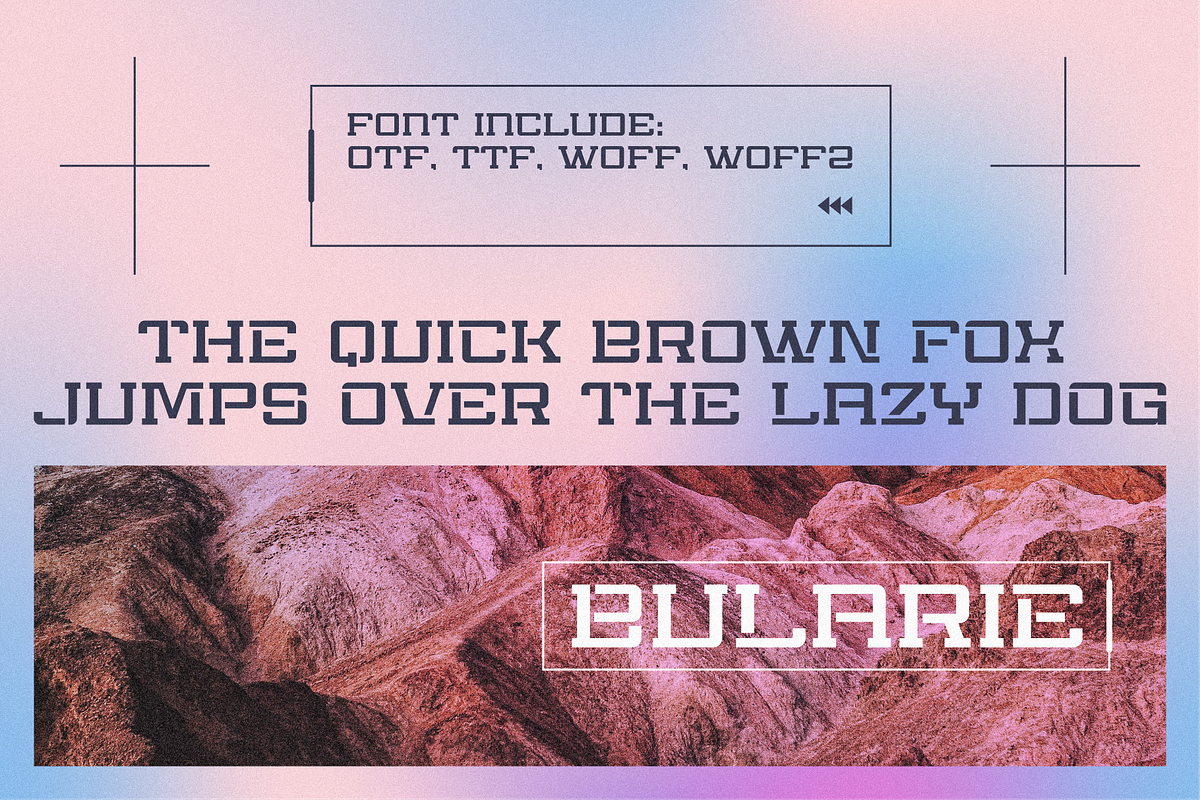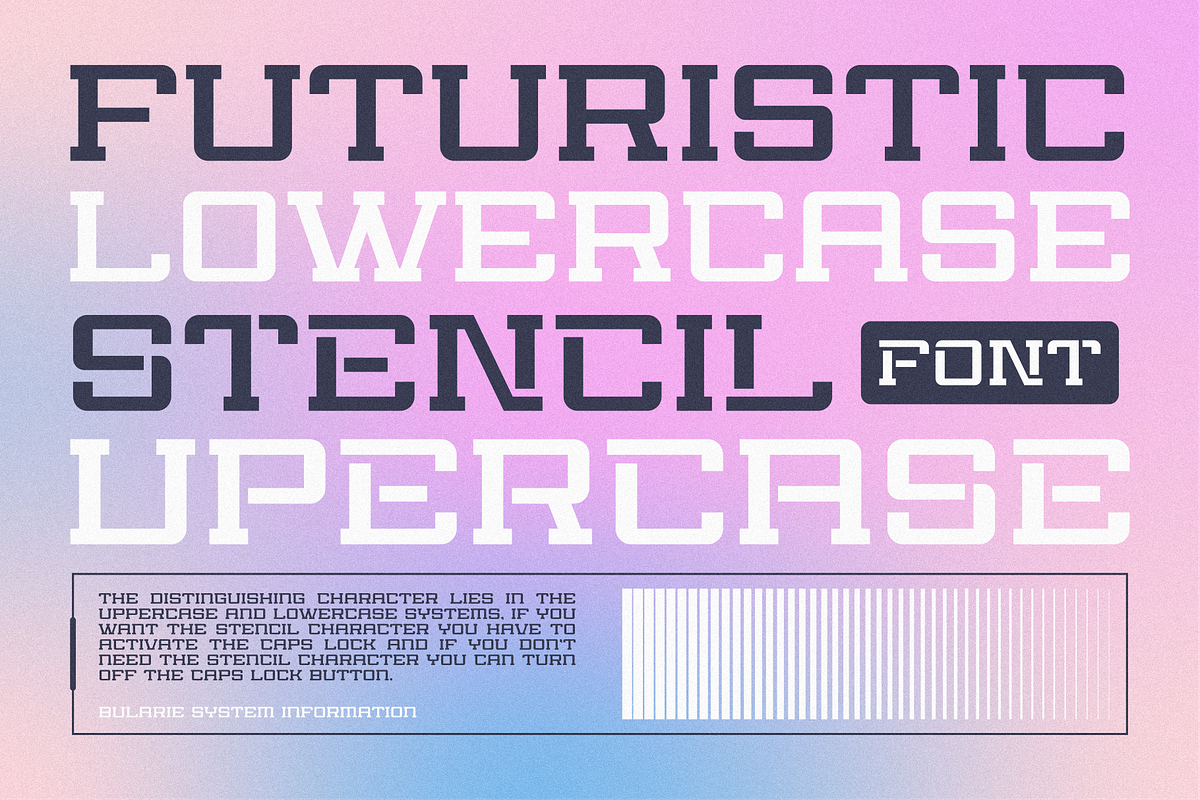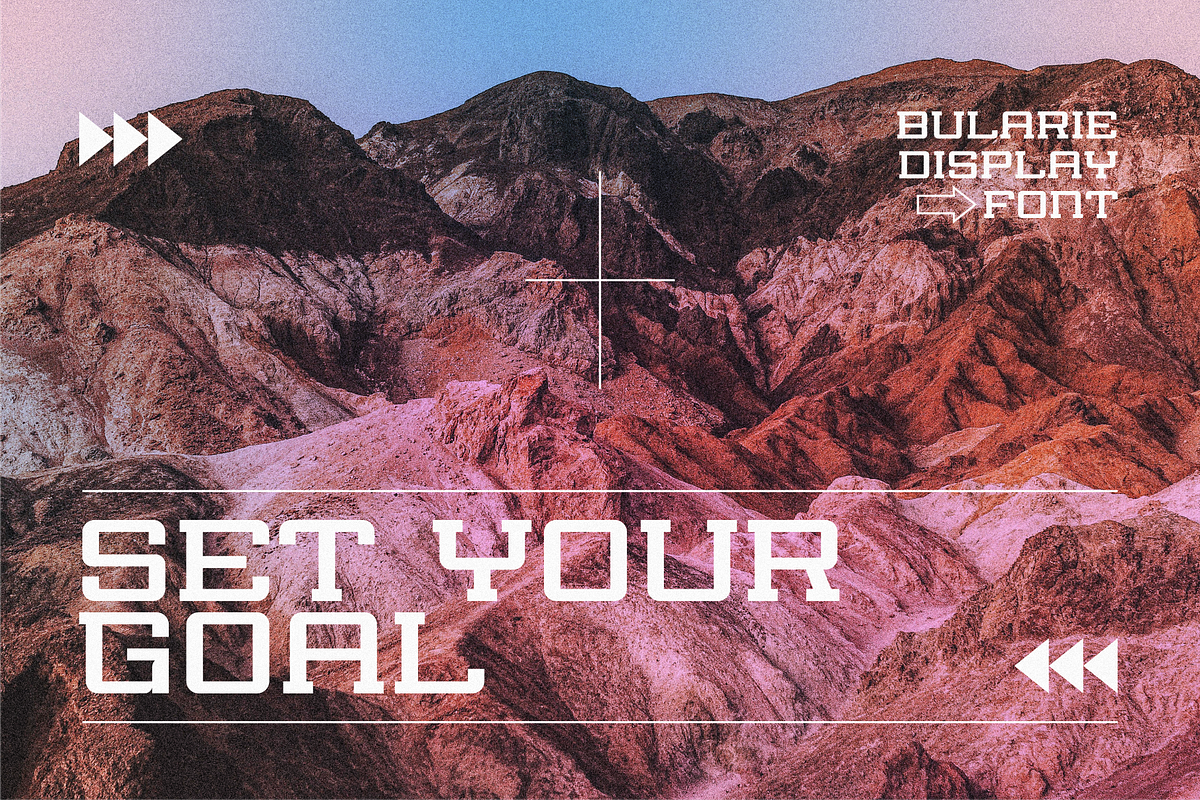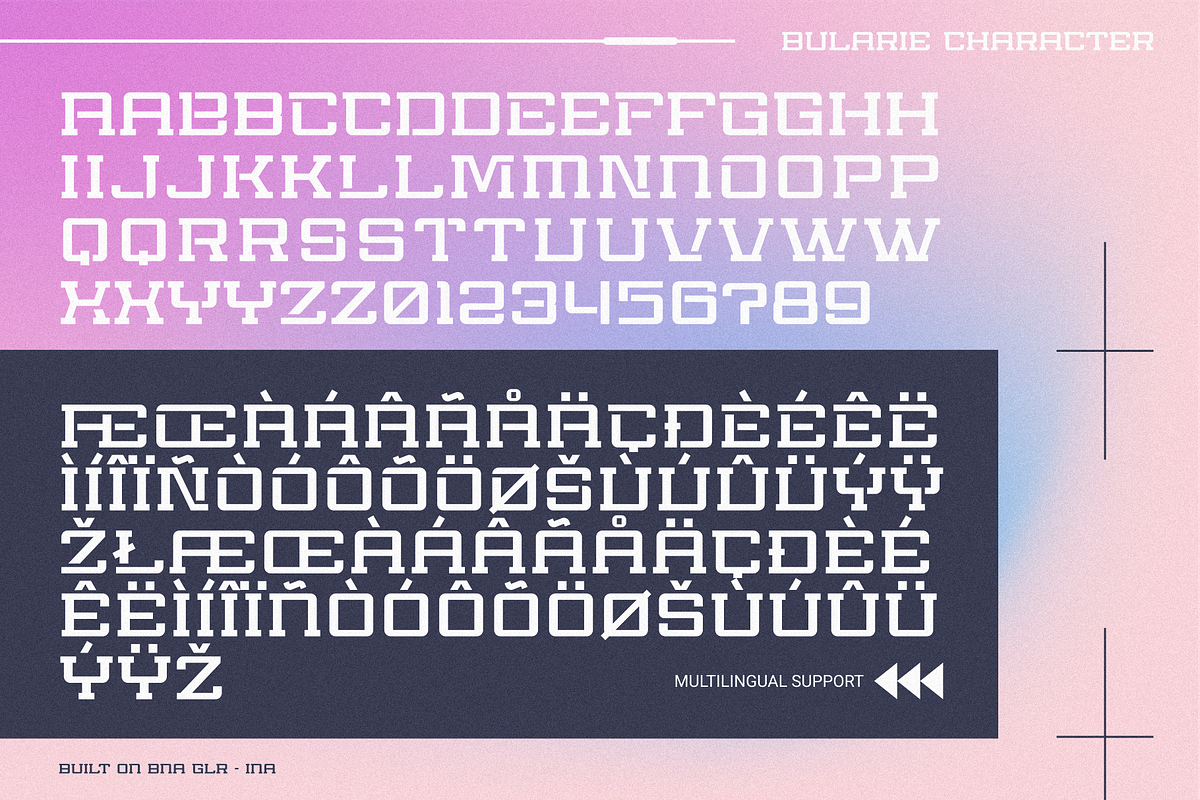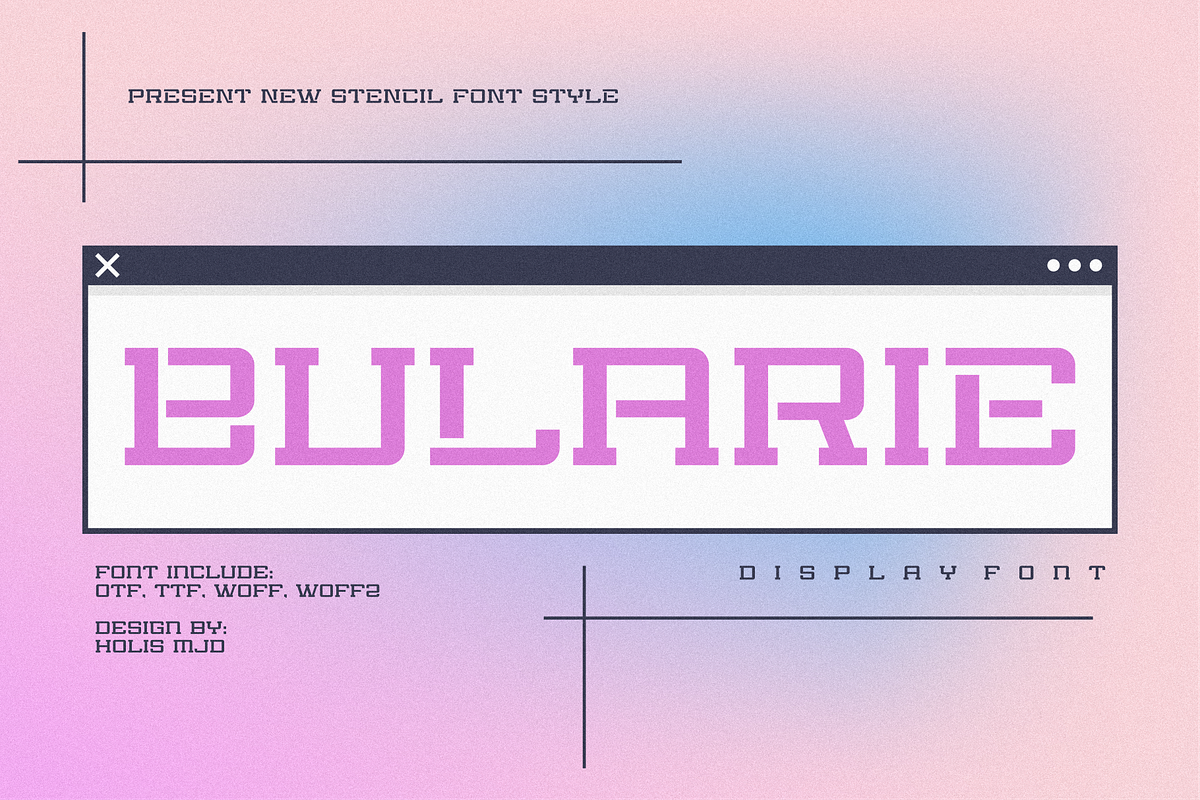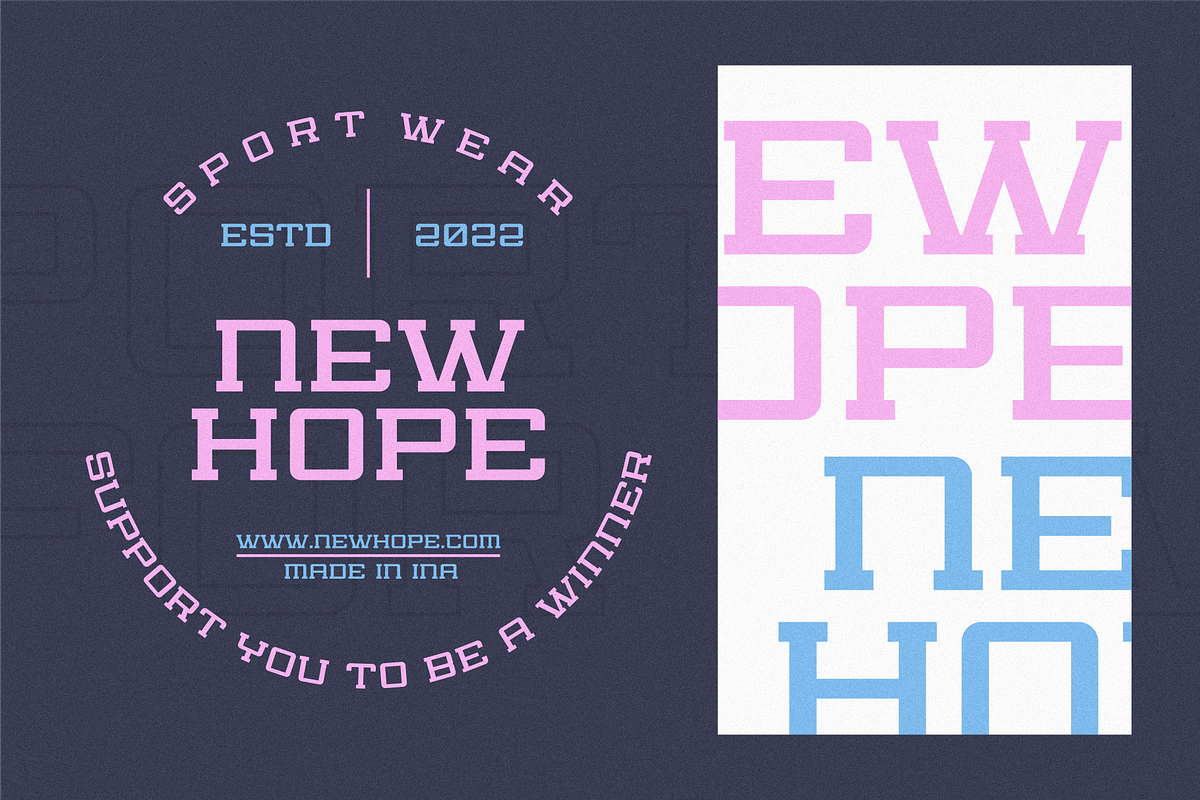
Bularie Futuristic Stencil
Bularie is a stencil-style font on the uppercase, and the standard lowercase, this font has a slightly retro look. This font is suitable for segmenting sports, games, music, movie posters, text on videos and others.